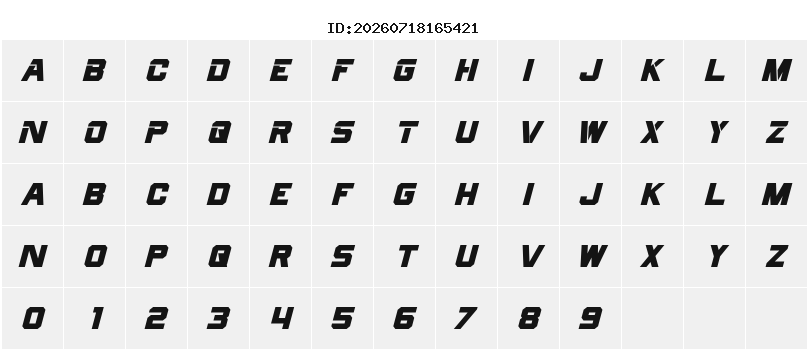
Cyberfall Preview
• Font Name: Cyberfall
• Designer: Neale Davidson
• Manufacturer: Pixel Sagas
About Cyberfall.otf
Cyberfall.otf is a modern, elegant sans-serif font designed for ultimate readability and visual harmony. Perfect for branding, headlines, web design, and print materials.